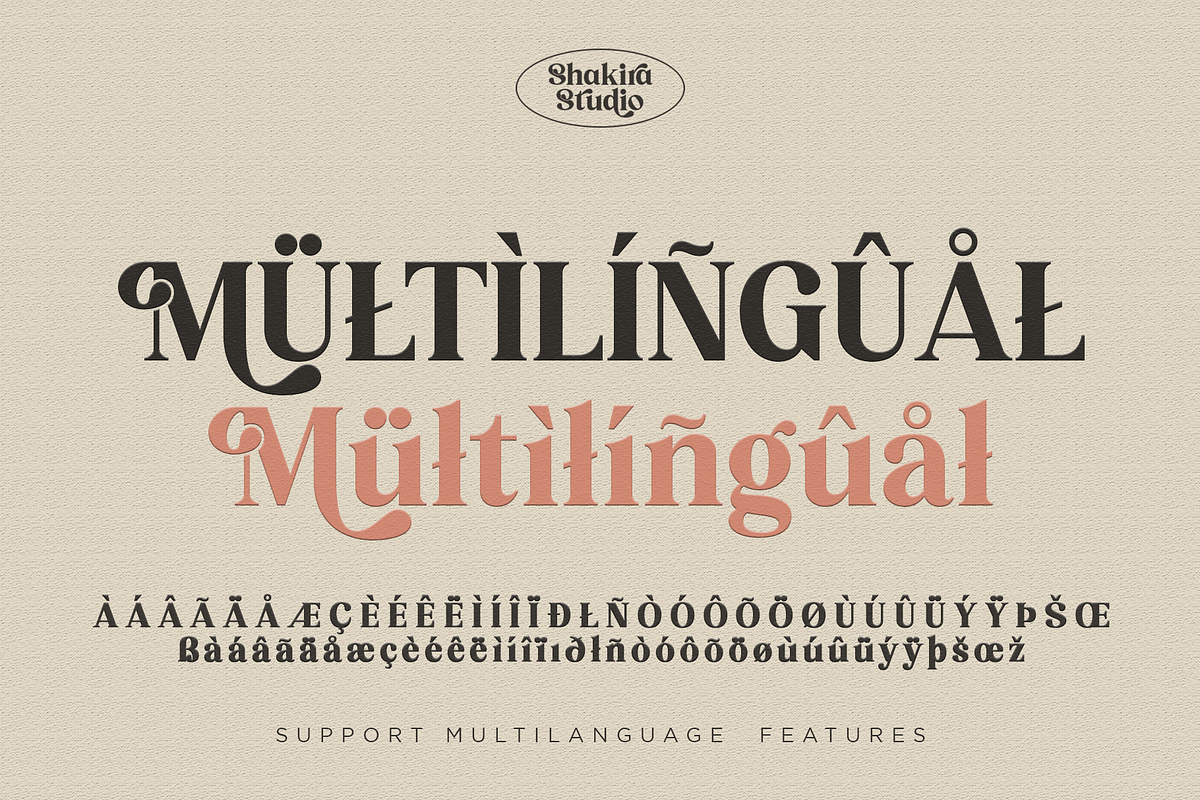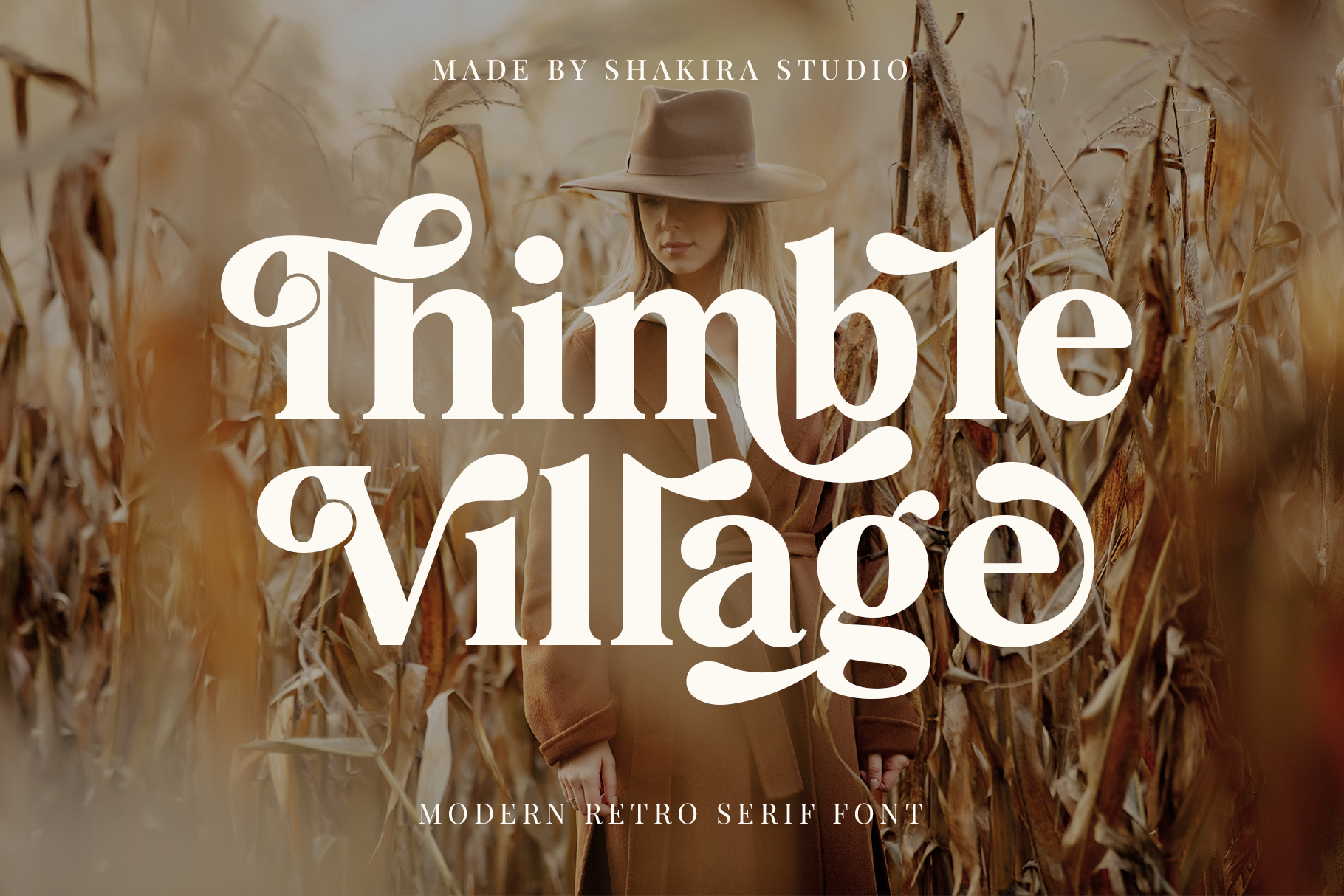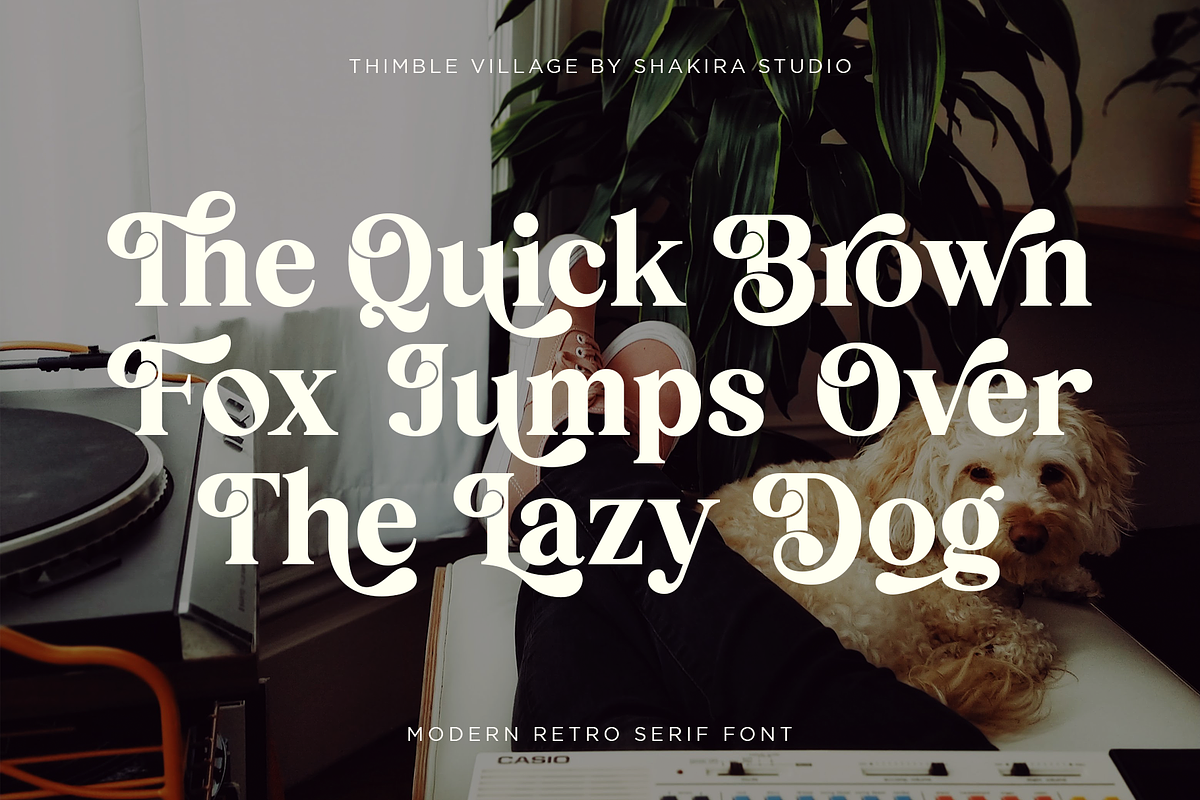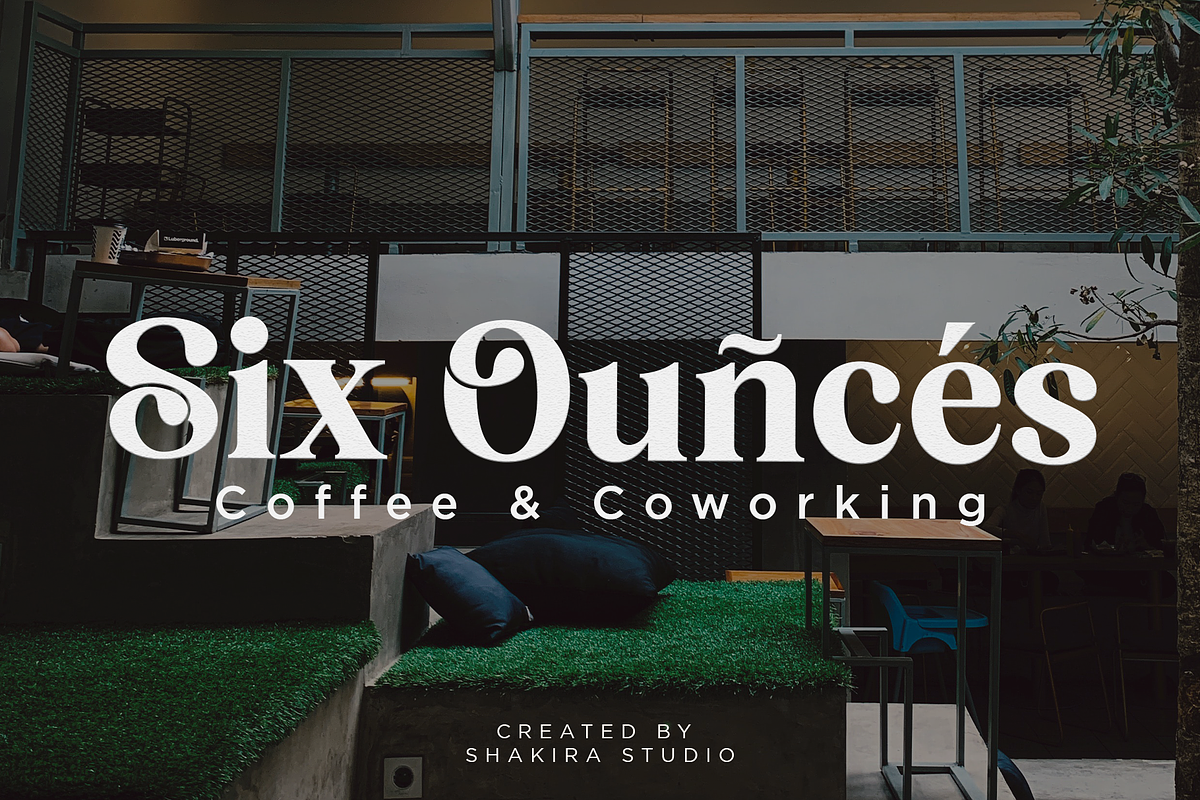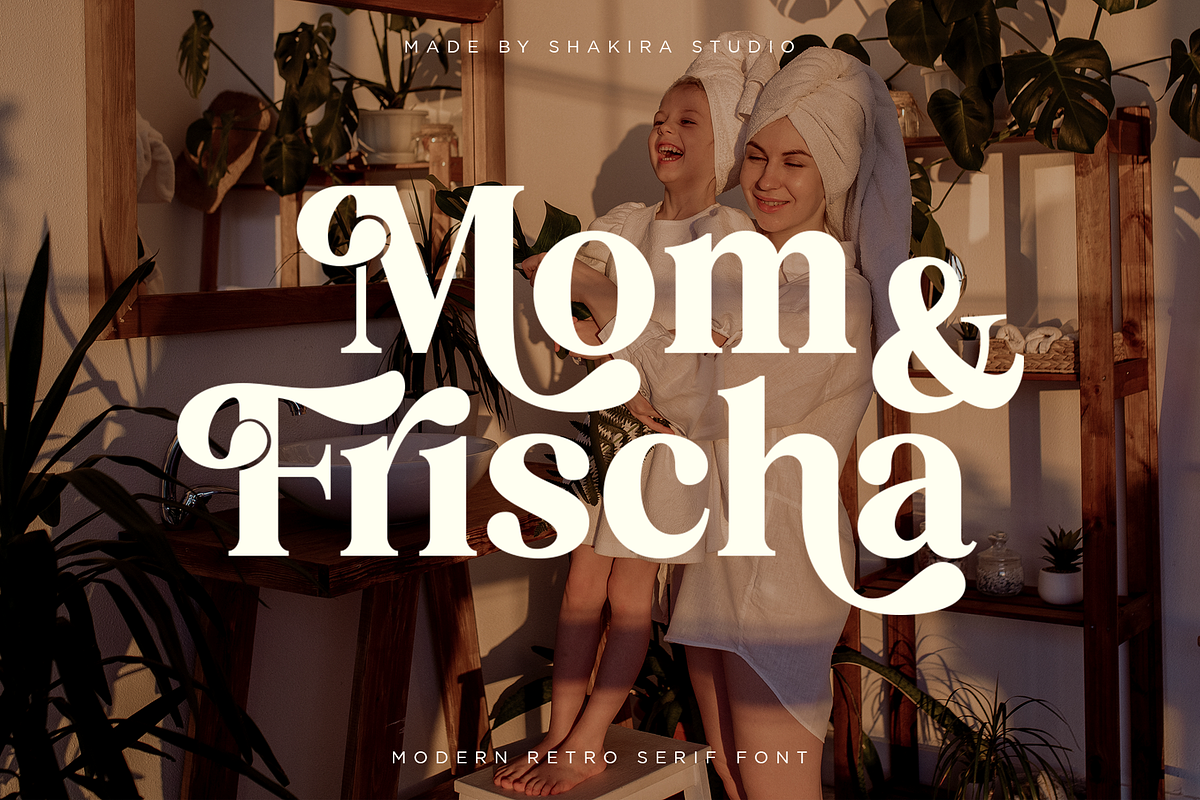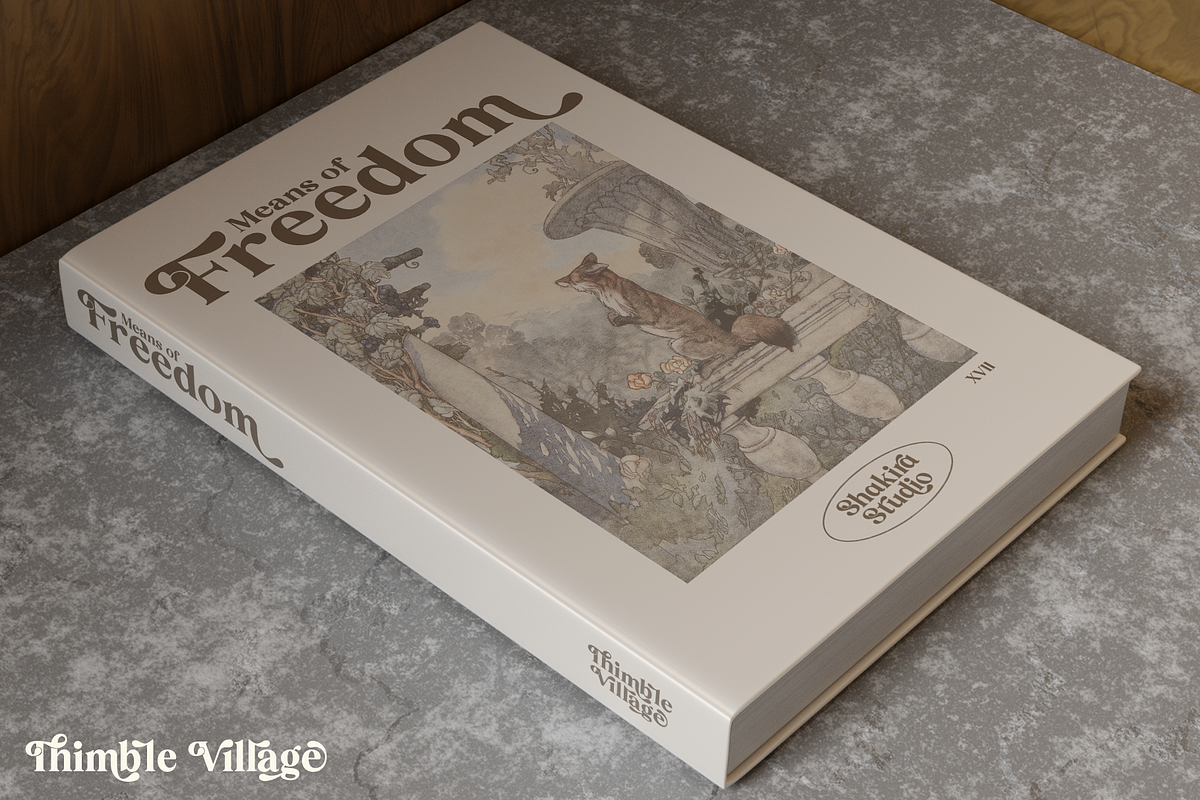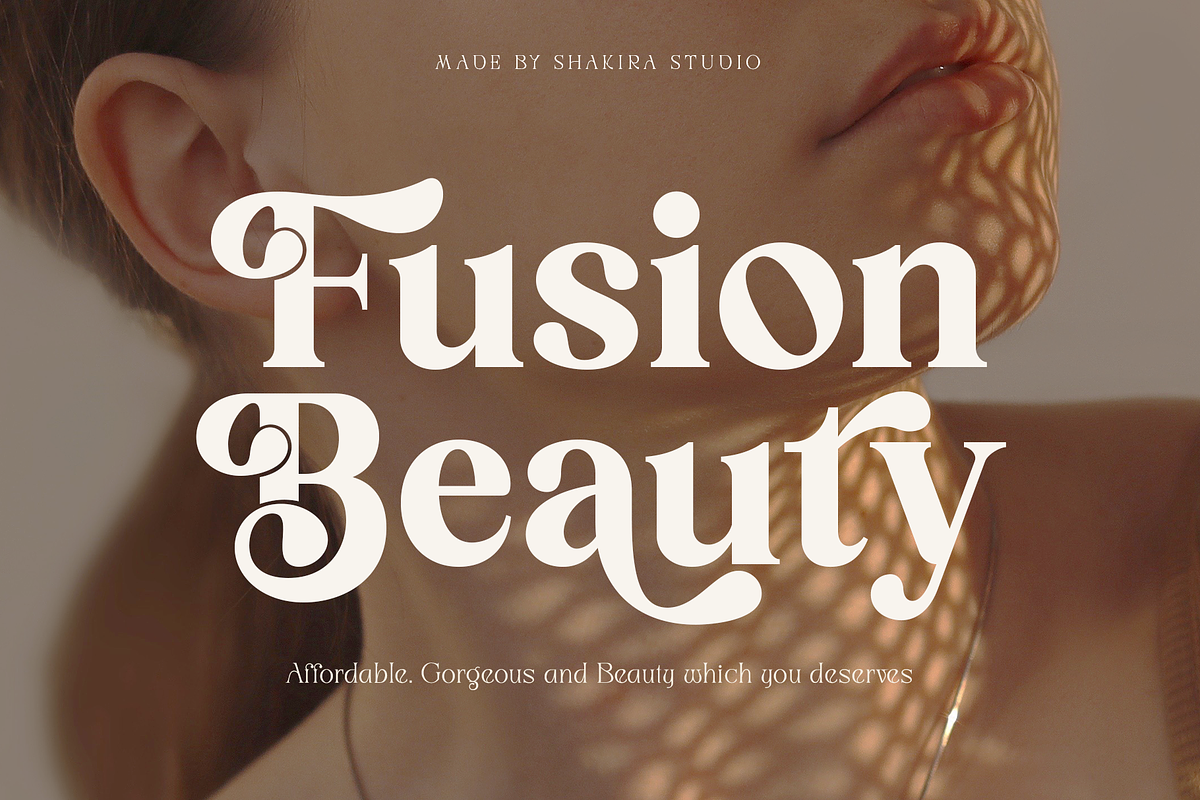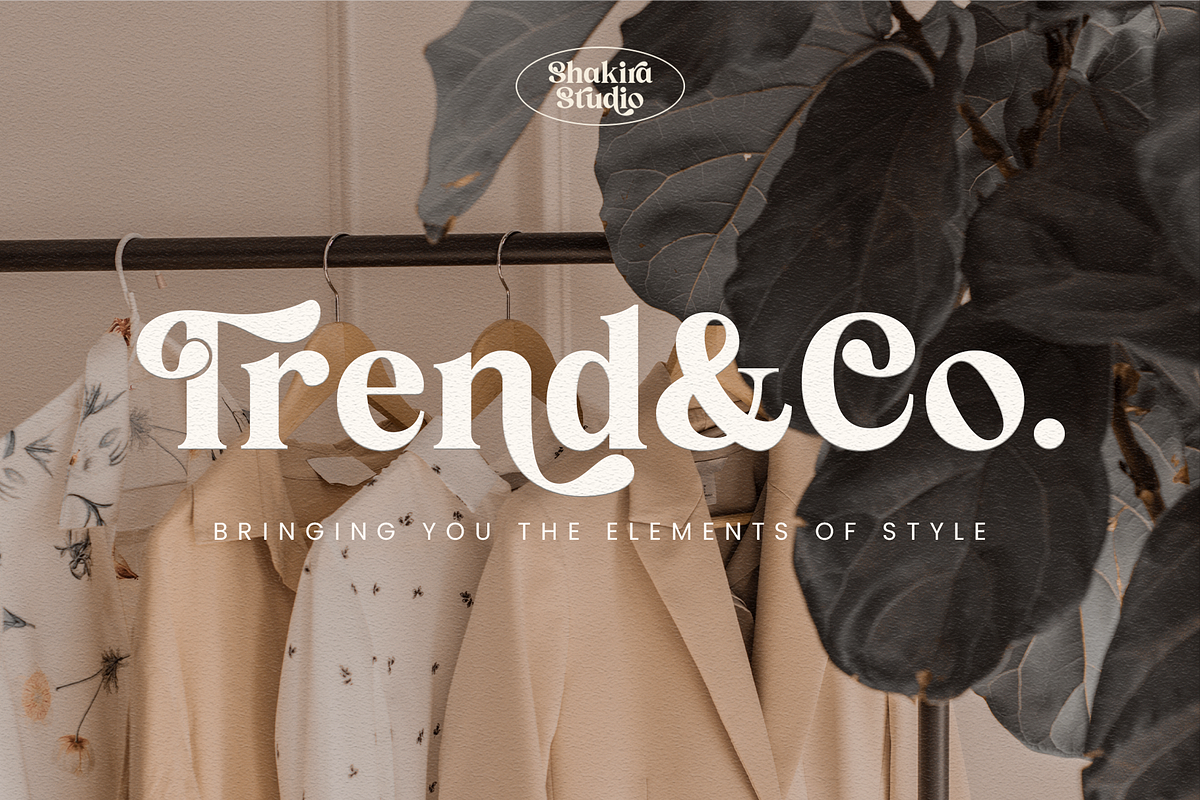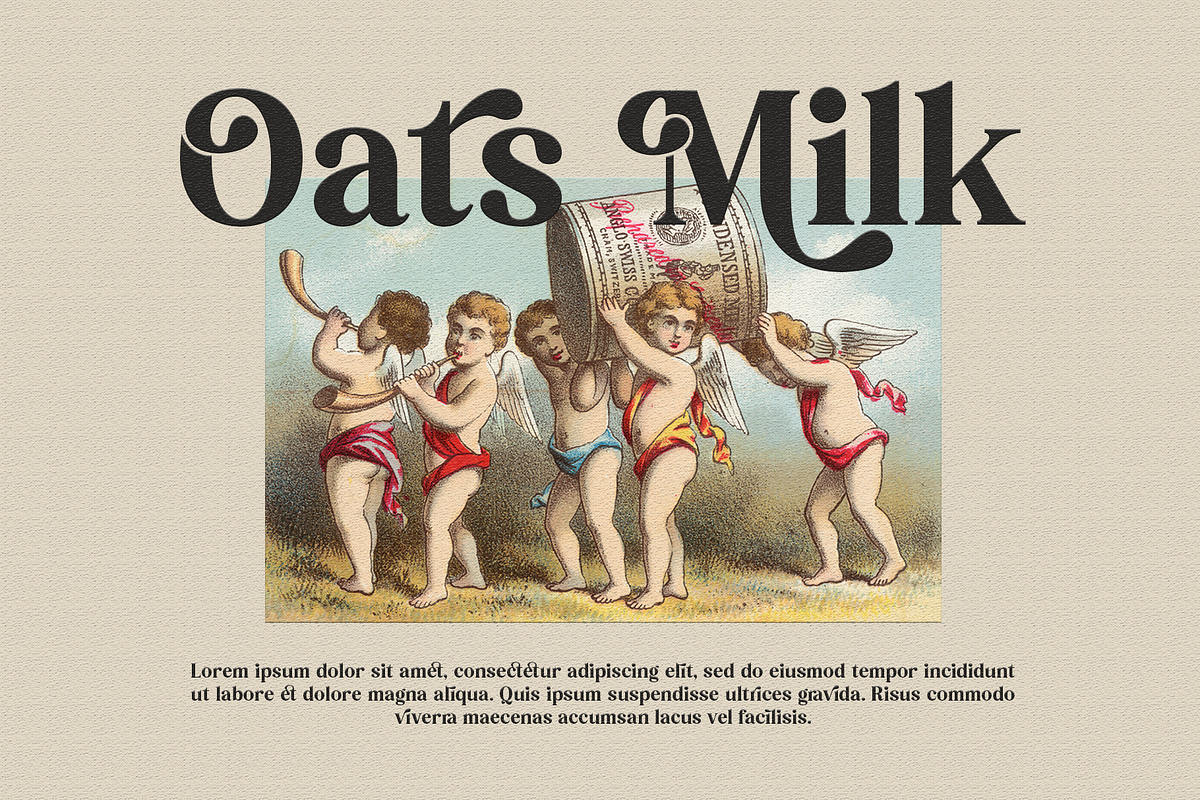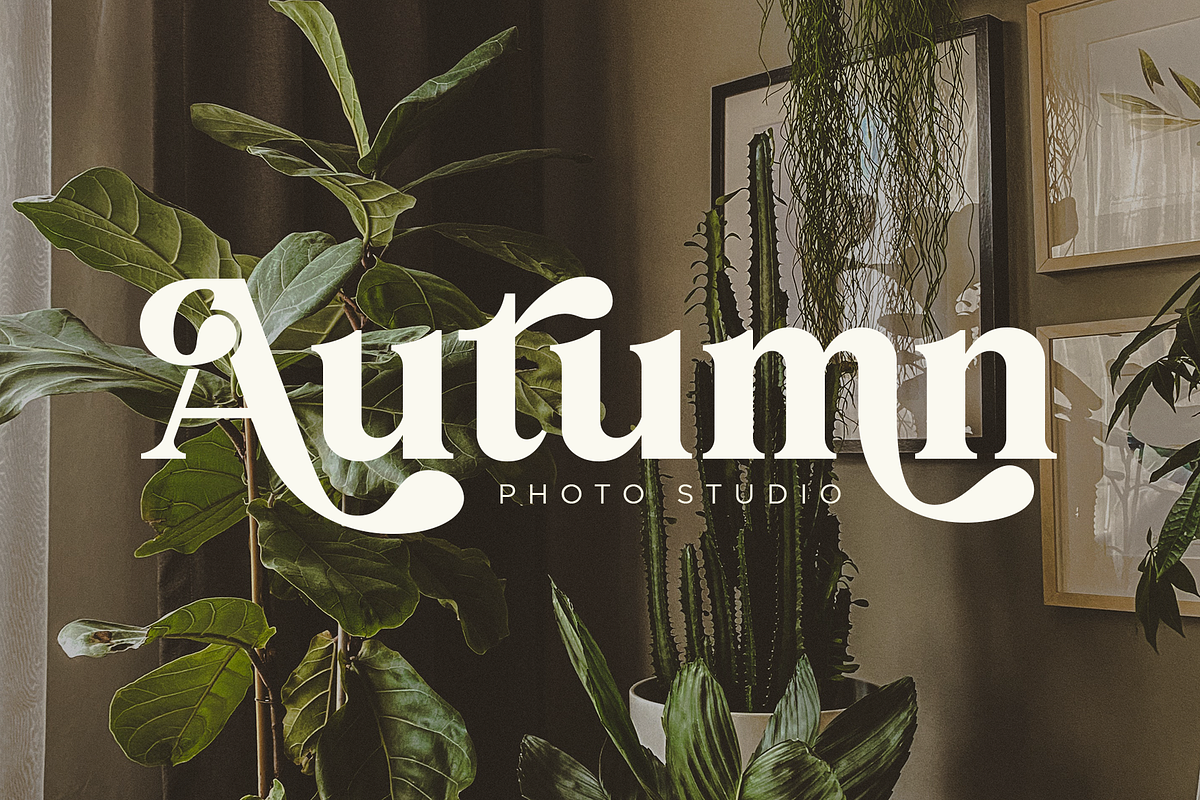
Thimble Village - Serif Display Font
Say hello to new serif font, Thimble Village!
Thimble Village is a Serif Display Font. Create bold, gorgeous headlines and elegant designs with a vintage flair. George's contrasting lines and curved terminals give a sleek, elegant look to logos, holiday cards, wedding invitations, quotes, advertisements, and more.
Thimble Village has full set of modern uppercase and lowercase letters, numerals, punctuation, also multilingual symbols. It included opentype features like ligature, alternate and many others.
- Regular and Italic
- Opentype features ( ligature, alternate )